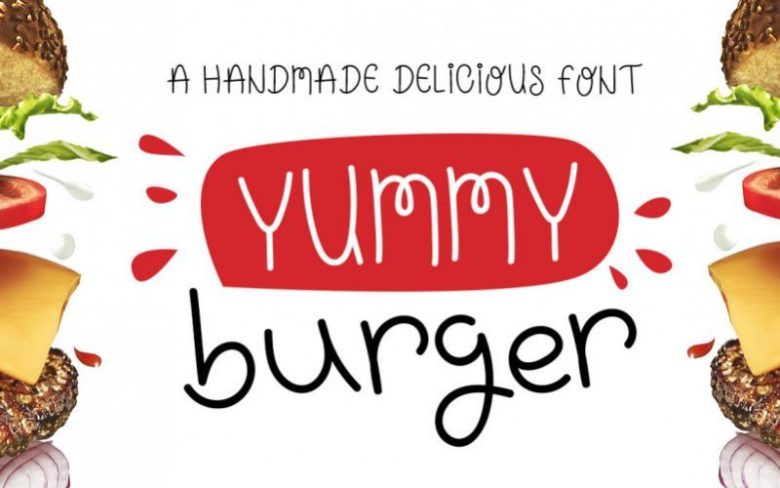
Yummy Burger Handmade Font
Yummy Burger is a fun handmade font designed for cards, t-shirt design, logos, quotes design, kids books…
A decorative typeface that will bring you the positive vibes out of a funky feeling, in honor of my love for burgers.
It comes with uppercase, lowercase, basic characters, standard numbers and punctuation, alternates & ligatures.